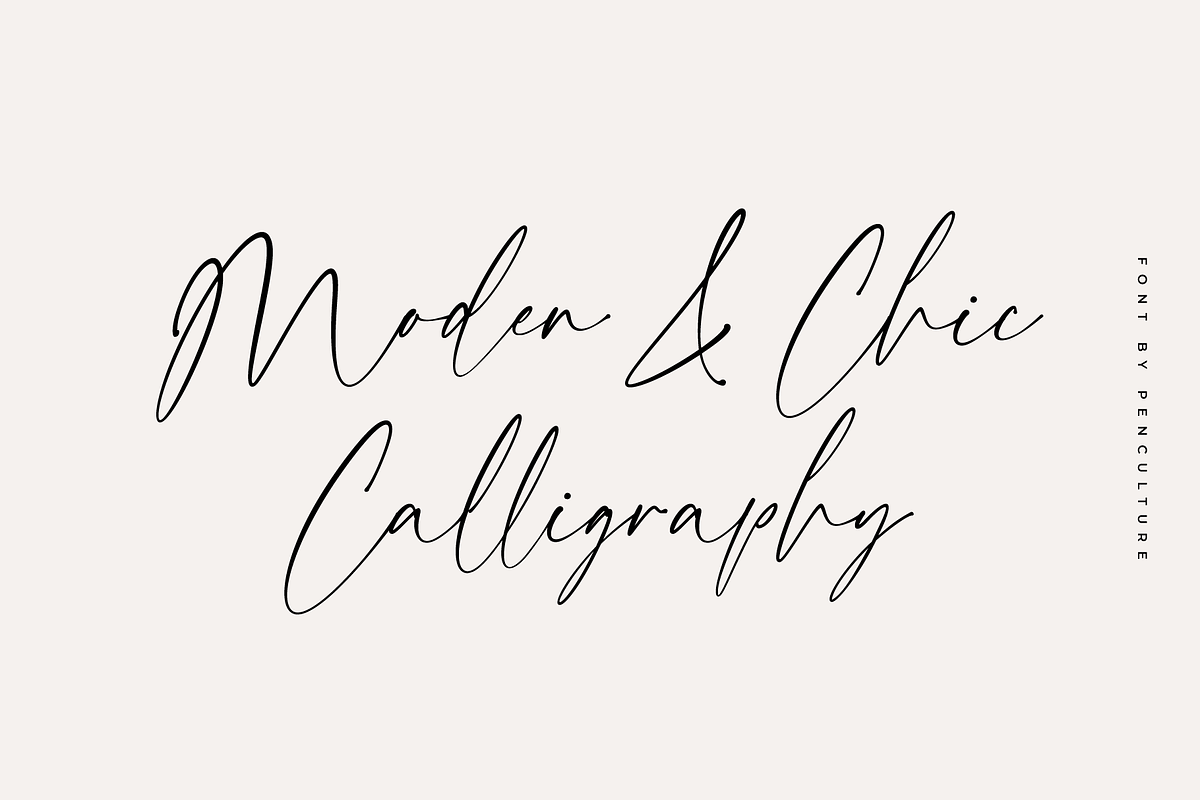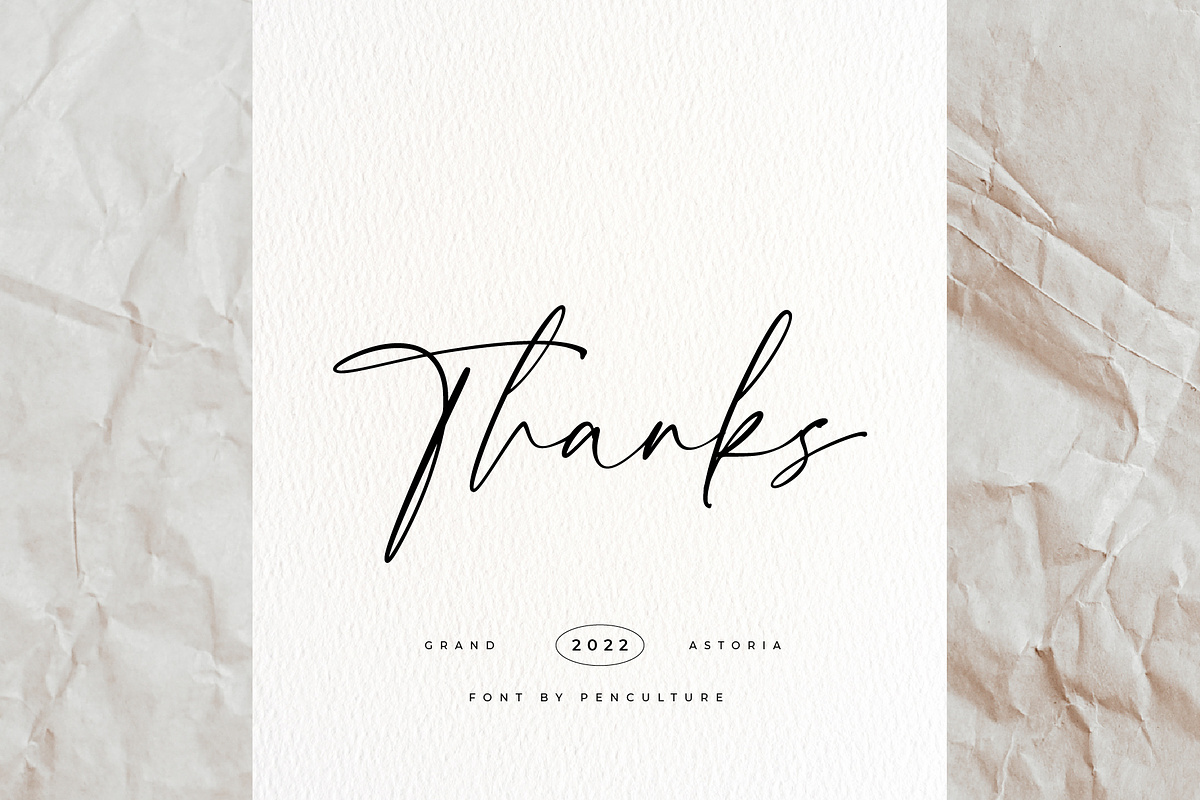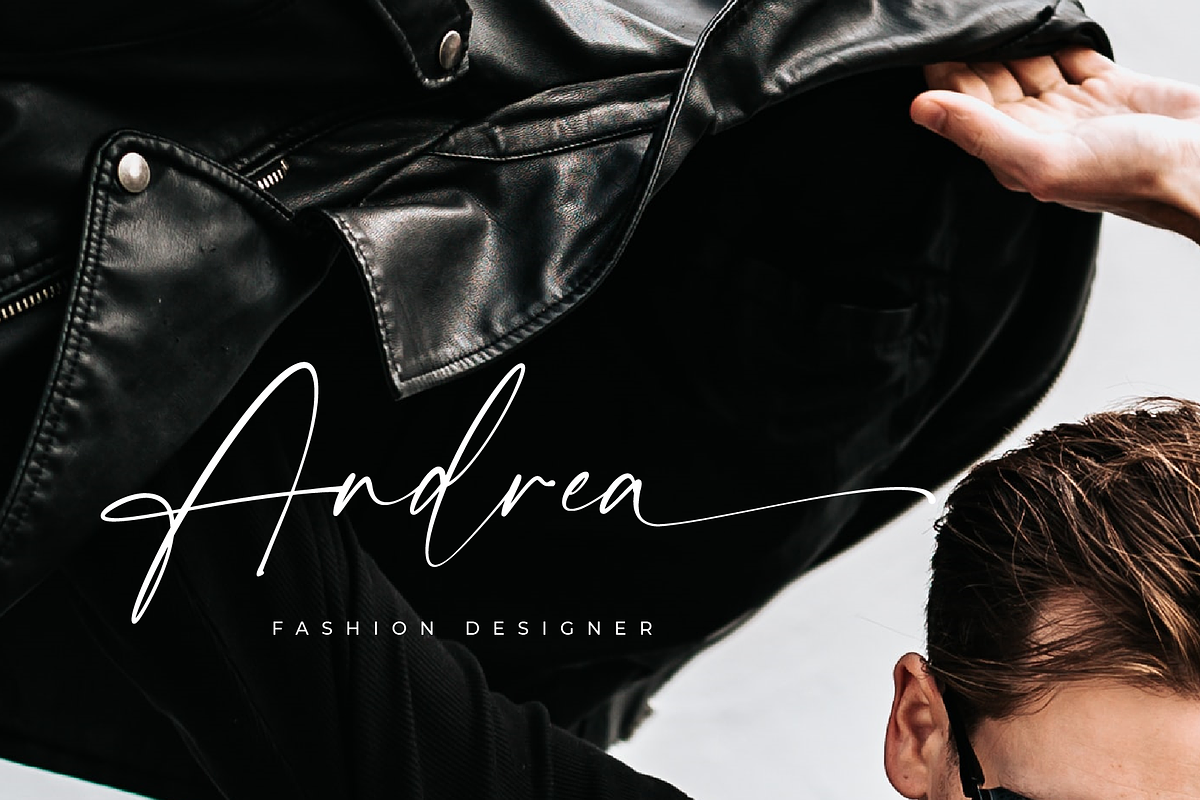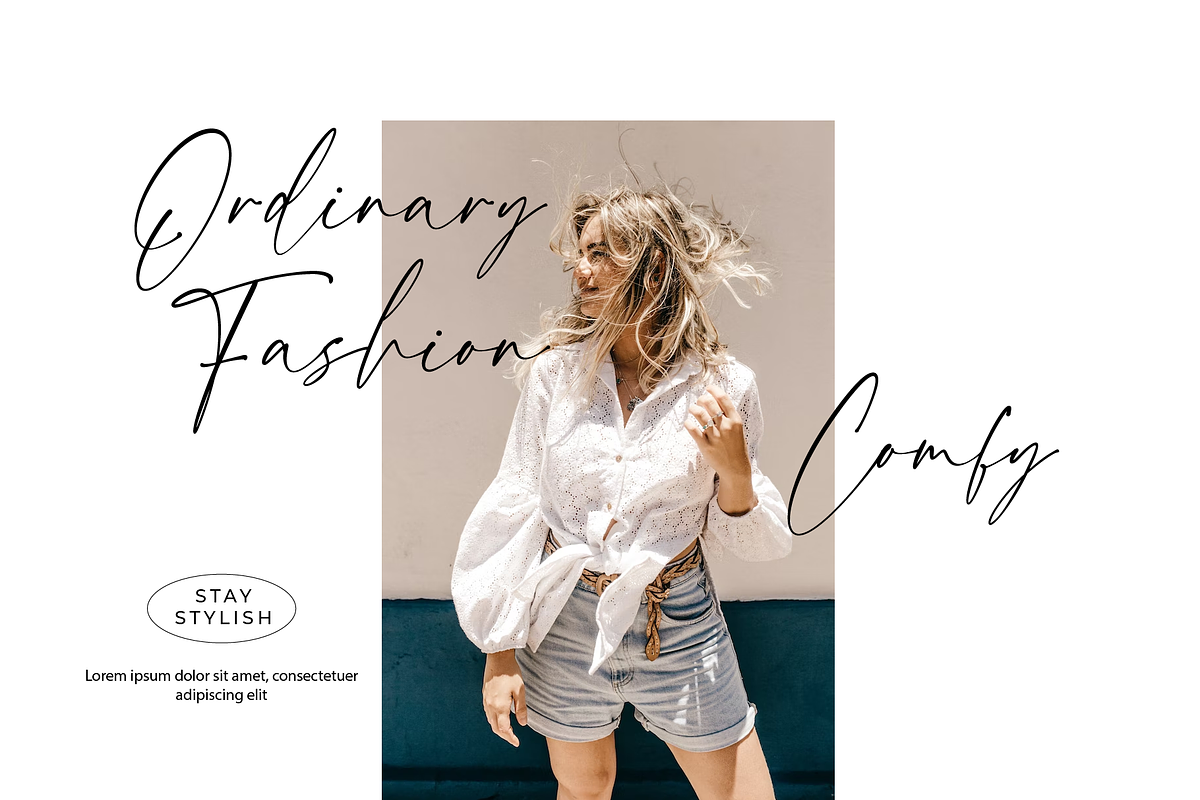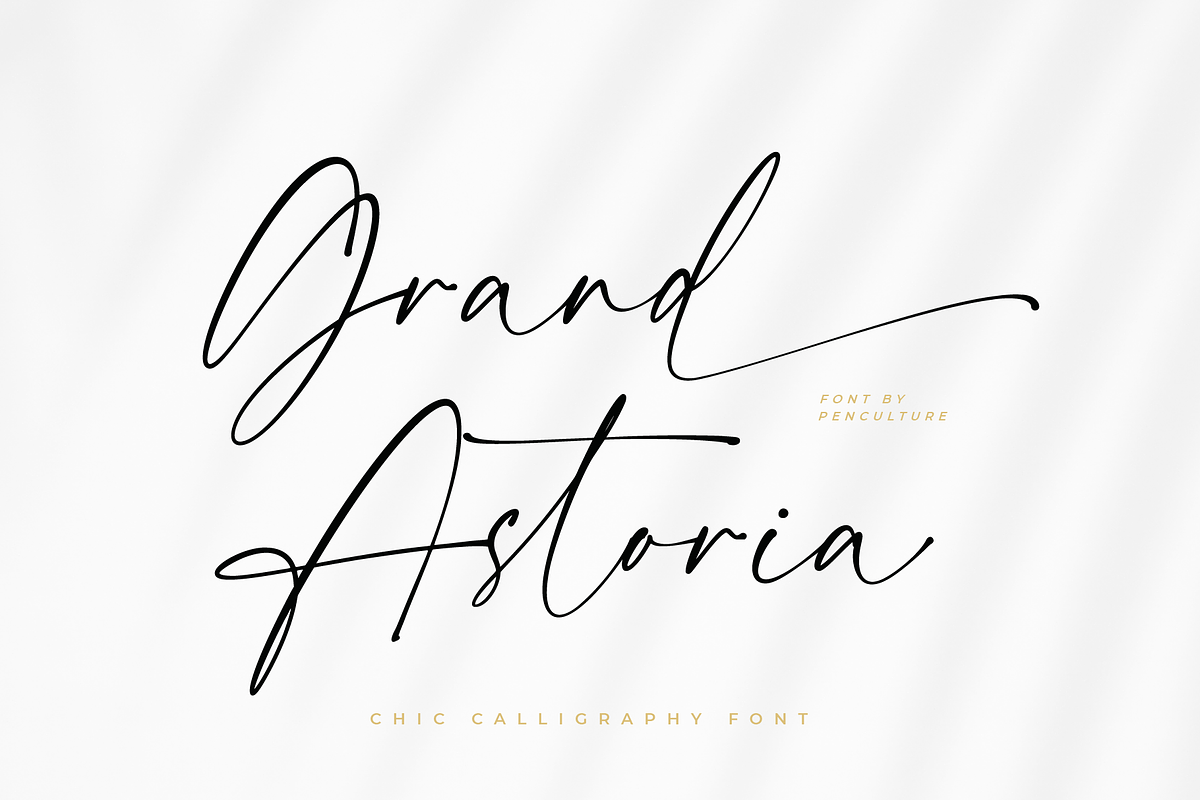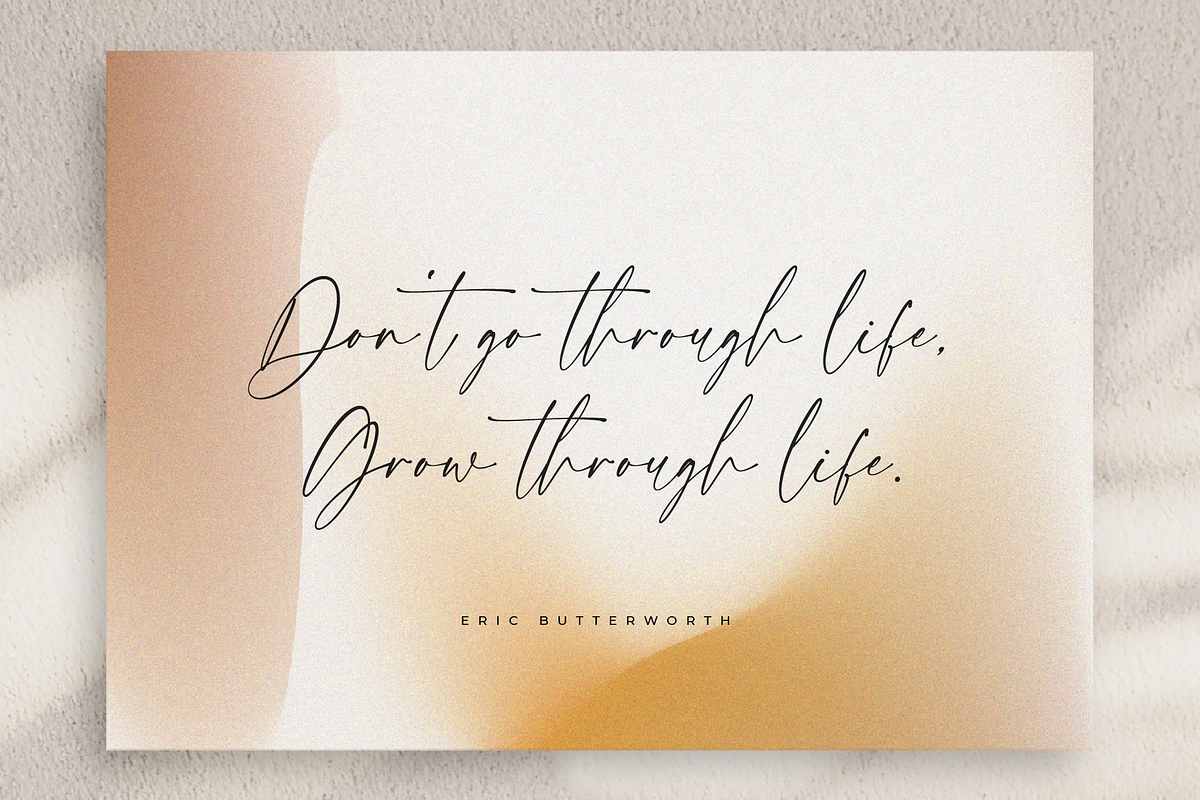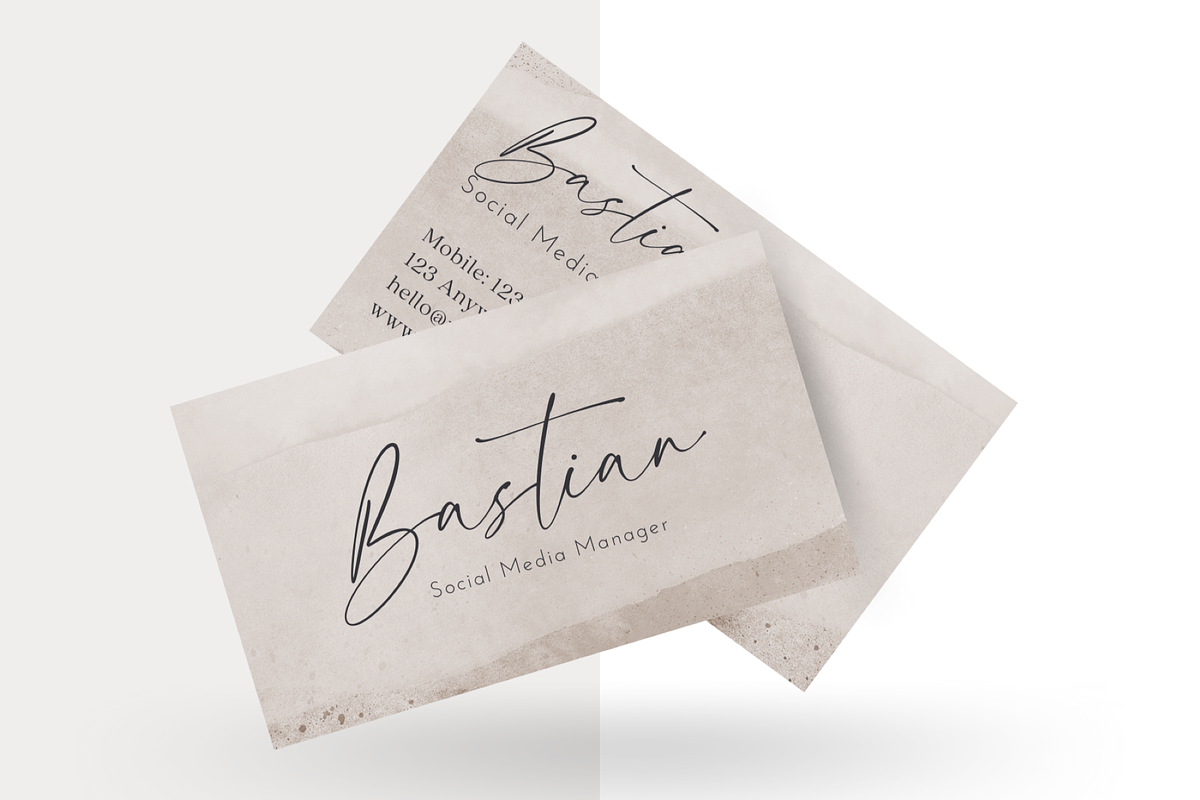
Grand Astoria // Chic Calligraphy
Introducing "Grand Astoria - Chic Calligraphy Font"
It's a modern chic calligraphy font with natural handwriting. This font perfect for branding, logo design, wedding, invitation and many more. Grand Astoria come with authentic uppercase and lowercase, number and punctuation, beginning and ending swash, lovely ligature.